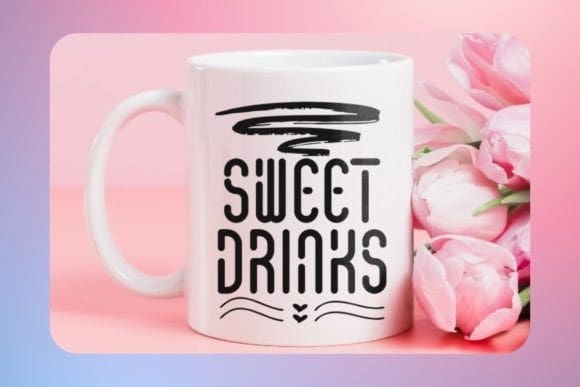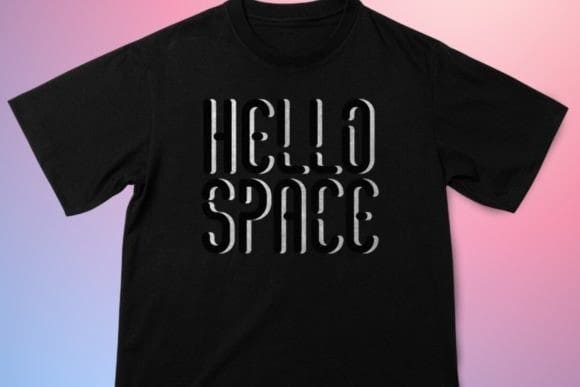
Space Minimalist Font
Space Minimalist Font is a futuristic and playful display font that brings a touch of cosmic whimsy to your creative projects. SpaceMinimalist is a font with its clean lines and sleek design, this font embodies a perfect balance of minimalism and futuristic playfulness.